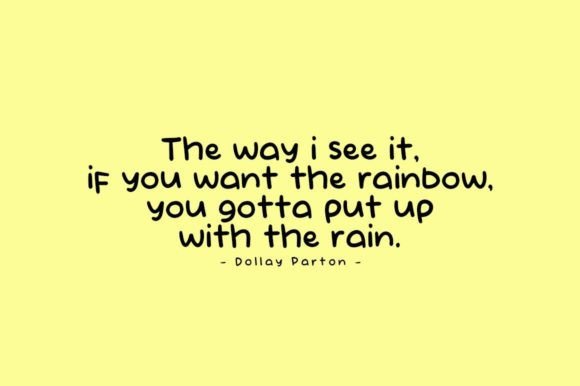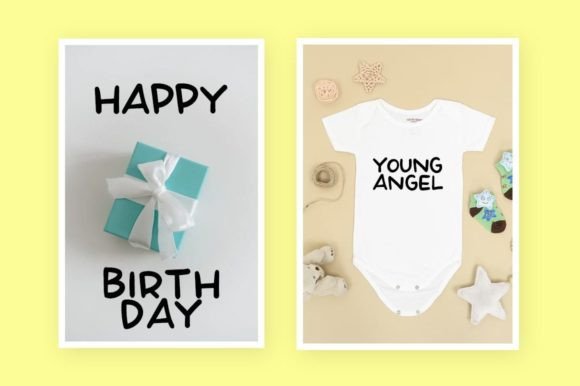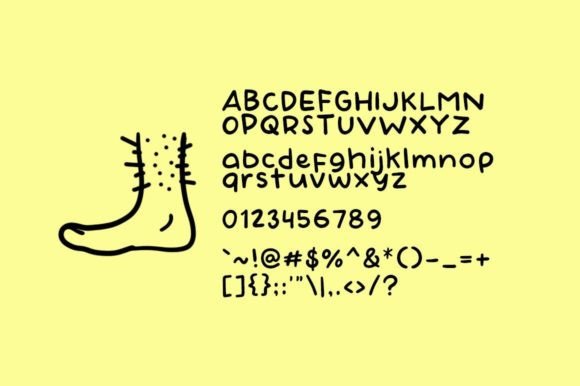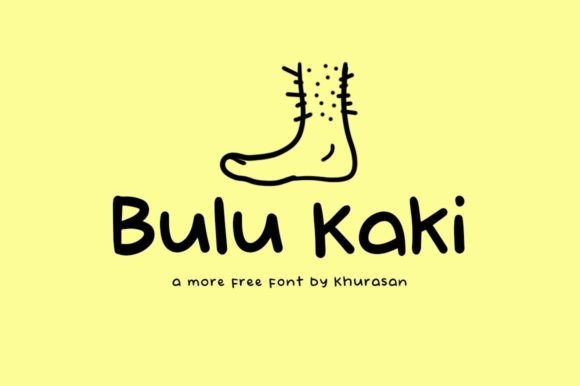
Bulu Kaki Font: The Ultimate Modern and Quirky Handwritten Font
Are you a designer or crafter looking for a unique and eye-catching font to elevate your creative projects? Look no further than Bulu Kaki Font! This modern and quirky handwritten font is perfect for a wide range of applications, from posters and logos to magazines, book covers, banners, and more.
What Makes Bulu Kaki Font So Special?
Bulu Kaki Font is a carefully crafted typeface that boasts a distinctive and charming personality. Its modern and quirky design makes it an excellent choice for designers and crafters who want to add a touch of whimsy and sophistication to their work. With its unique letterforms and flowing lines, Bulu Kaki Font is sure to capture the attention of your audience and leave a lasting impression.
One of the best things about Bulu Kaki Font is its versatility. This amazing typeface can be used for a wide range of projects, including:
- Posters: Create eye-catching posters that grab attention with Bulu Kaki Font.
- Logos: Use Bulu Kaki Font to create a unique and memorable logo for your brand.
- Magazines: Add a touch of elegance and sophistication to your magazine with Bulu Kaki Font.
- Book Covers: Make your book cover stand out with Bulu Kaki Font.
- Banners: Create stunning banners that showcase your message with Bulu Kaki Font.
Why Choose Bulu Kaki Font?
So, why should you choose Bulu Kaki Font for your next project? Here are just a few reasons:
- Unique and Quirky Design: Bulu Kaki Font boasts a modern and quirky design that will set your project apart from the rest.
- Highly Legible: Despite its unique design, Bulu Kaki Font is highly legible, making it perfect for body text and headlines.
- Versatile: Bulu Kaki Font can be used for a wide range of projects, from print to digital.
Tips and Tricks for Getting the Most Out of Bulu Kaki Font
Here are a few tips and tricks for getting the most out of Bulu Kaki Font:
- Experiment with Different Sizes and Colors: Bulu Kaki Font looks great in a variety of sizes and colors, so don’t be afraid to experiment.
- Pair with Other Fonts: Bulu Kaki Font pairs well with a variety of other fonts, so try pairing it with a sans-serif font for a modern look.
- Use for Headlines and Body Text: Bulu Kaki Font is highly legible, making it perfect for both headlines and body text.